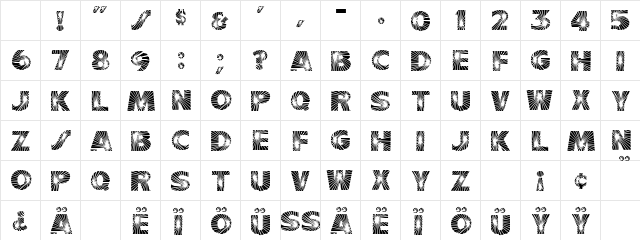
Starburst Regular Free Font
Starburst Regular
Starburst Family
Design Context for Starburst
Starburst is a composed and adaptable typeface that performs quietly and consistently across a wide range of design contexts.